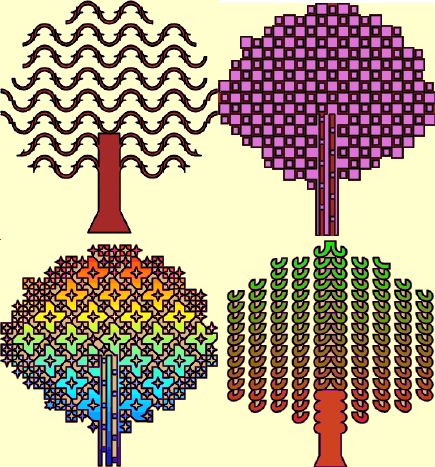
Fun trees.  Feel free to modify.
What a delightful forest this will grow into ...... a perfect font for spring :)
A magic forest, there must be a fairy tale hidden in these trees...
is there a particular logic or mnemonic to remember which trees for which keys?
No mnemonic but here is an image to help.
Very pretty. 10/10
very creative